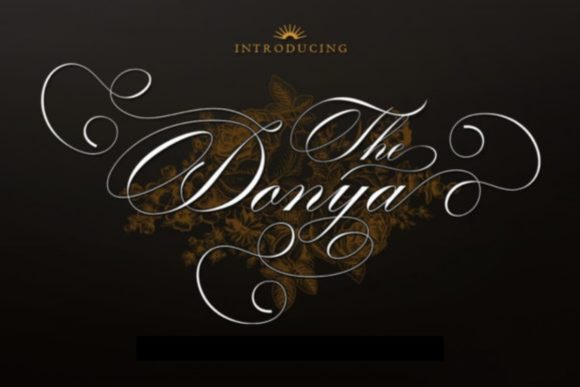
Prepare to be captivated by The Donya Font, a creation of Stellar Studio, a script font that exudes elegance and sophistication. Inspired by the timeless art of calligraphy, The Donya Font boasts a contemporary flair that will add a touch of charm to your creative endeavors.
With its delicate strokes and impeccable form, this font strikes a perfect balance between thin and thick, creating a visually pleasing harmony that enhances the beauty of your projects. Whether you're crafting logos, designing invitations, or creating social media graphics, The Donya Font is sure to leave a lasting impression.
But what truly sets The Donya Font apart is its versatility. Perfectly suited for crafting speech scripts, this font allows your words to flow effortlessly, conveying your message with eloquence and grace. Its carefully crafted curves and swashes add a touch of artistry to your text, elevating it beyond the ordinary.
Unlock the full potential of The Donya Font with its PUA encoding, which grants you effortless access to a treasure trove of glyphs and swashes. Unleash your creativity and explore endless possibilities, crafting designs that resonate with your audience and leave them in awe.